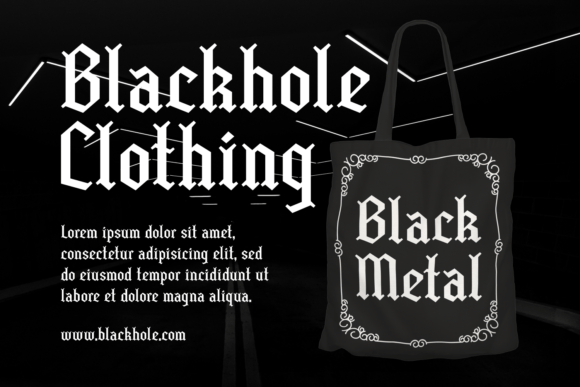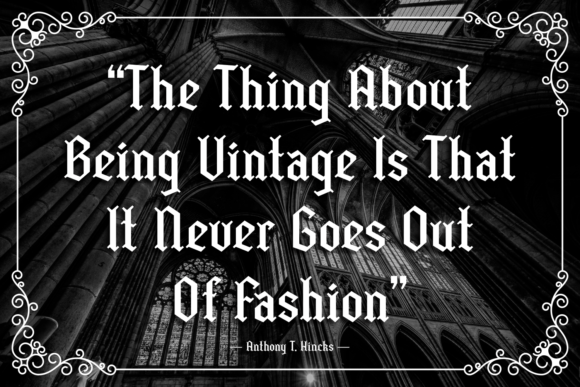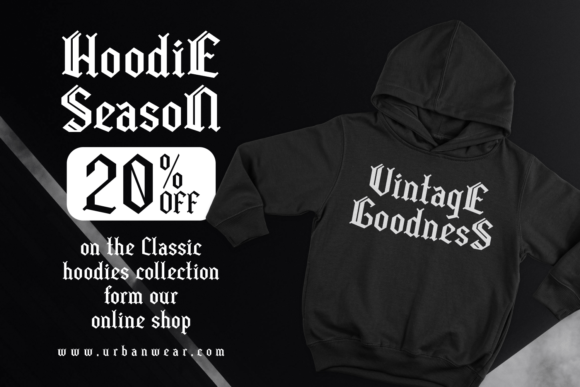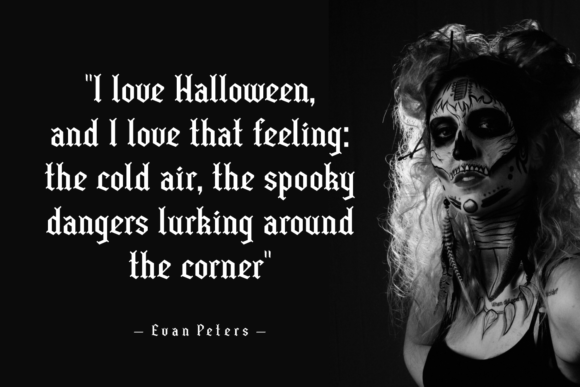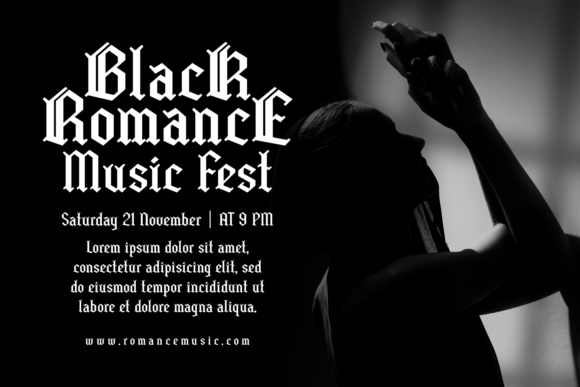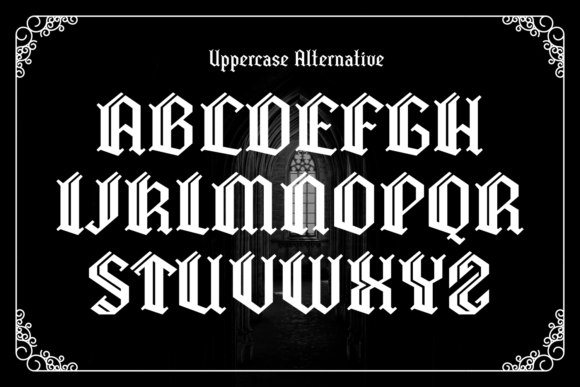
Introduction to Black Miles Font
Have you ever been stuck on a design project, searching for the perfect font to elevate your creative vision? You scroll through countless options, but none seem to capture the essence you’re aiming for. For designers, finding that one elusive font can be a game-changer – it’s the difference between a good design and a great one.
Enter the Black Miles Font, a modern masterpiece that combines the boldness and intricacy of classic blackletter fonts with contemporary design elements. This high-quality font is a valuable resource for any designer looking to add a unique touch to their project. With its transparent background, it’s perfect for logos, posters, packaging, or any design that requires bold typography.
Whether you’re working on a free download project or a paid design client, the Black Miles Font is an excellent choice. Its modernized blackletter aesthetic brings attention to any creative project, making it a must-have in your design arsenal.
Key Features of Black Miles Font
- Transparent background for seamless integration into designs
- Designed with a modern and sleek aesthetic, perfect for digital projects
- Includes a wide range of glyphs and characters for versatility
Honest Review: Black Miles Font
I recently stumbled upon the Black Miles Font, and I must say it’s been a game-changer for my creative projects. This free download has been a fantastic addition to my design resource collection.
- ✨ High-quality font: The Black Miles Font is well-designed and looks great on both light and dark backgrounds.
- ✨ Versatile: This font is perfect for various design projects, from headings to body text, and even logos.
- ✨ Transparent background: The font’s transparent background makes it easy to overlay on any image or design element.
However, I did encounter a few limitations ⚠️:
- ⚠️ Limited character set: The font only includes a basic set of characters, which might not be suitable for all design projects.
- ⚠️ Not ideal for small text: The font’s design might make it difficult to read in small text sizes.
Overall, I’m impressed with the Black Miles Font. It’s a high-quality design resource that can elevate any creative project. While it has some limitations, I think it’s a great addition to any designer’s toolkit. I’d definitely recommend it for its versatility and unique design.
Getting the Most Out of Black Miles Font
To get the most out of the Black Miles Font, use it for creative projects that require a high-quality, bold font. You can also use it with a transparent background to create a striking visual effect.
The Black Miles Font is commonly used for headings, titles, and slogans in design projects. It’s also a popular choice for creating bold and eye-catching social media graphics.